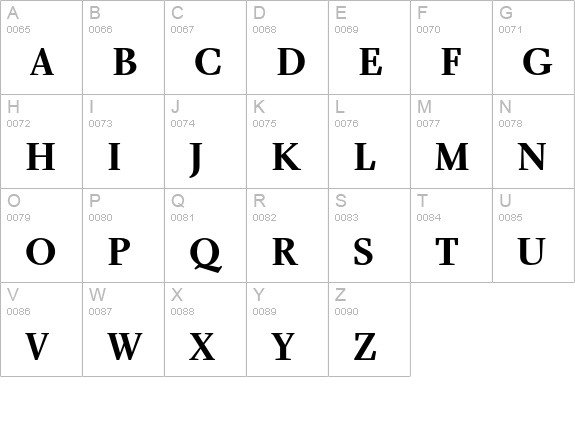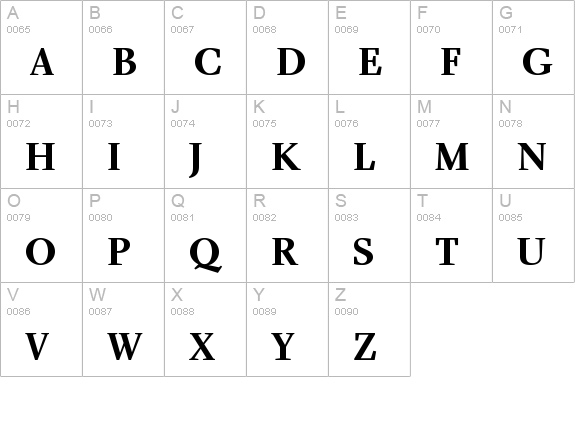
Charlotte Std Bold is a strong, high-contrast variant in the Charlotte typeface family \xE2\x80\x94 well suited to headlines, attention-grabbing titles, and strong calls-to-action.
Charlotte Std Bold is a bold and attention-grabbing font that exudes confidence and modernity. Its thick strokes and clean lines make it perfect for adding impact to any design project. Whether you're creating eye-catching posters, striking headlines, or bold logos, Charlotte Std Bold is sure to make a statement. And the best part is that it is completely free to download at FontsMarket.com. So go ahead and give your designs a bold edge with Charlotte Std Bold today!